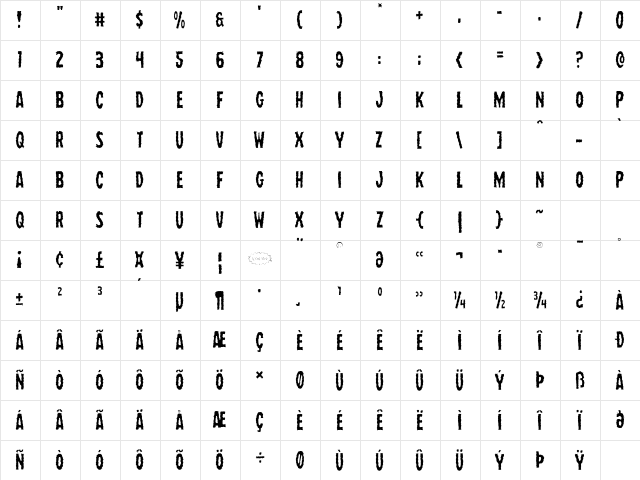
Complete Wolf Brothers Light Light glyph index. Displaying only characters natively supported by Wolf Brothers Light Light font.
Wolf Brothers Light is a composed and adaptable typeface that performs quietly and consistently across a wide range of design contexts. Its slender proportions lend an understated elegance to any composition.